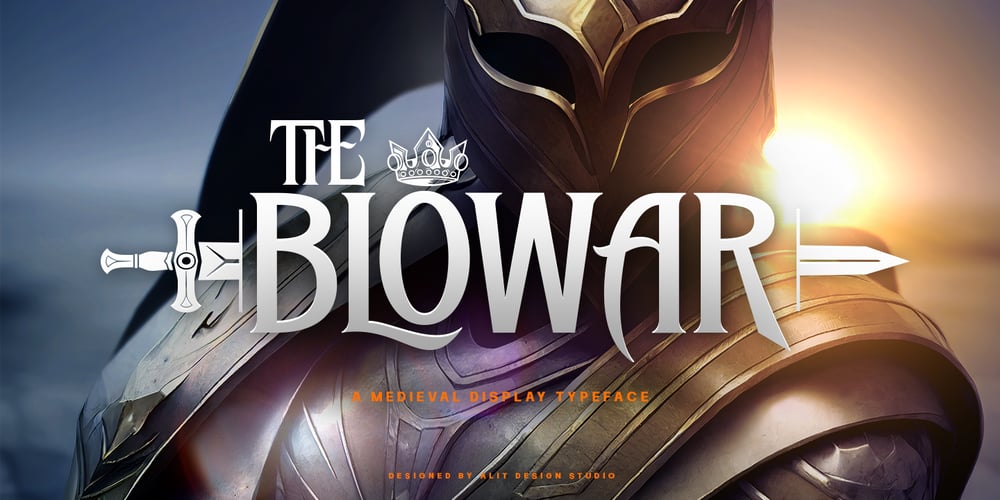
The Blowar Font Family was designed by Alit Suarnegara and published by Alit Design. The Blowar contains 2 styles and family package options. Presenting ⚔️The Blowar Typeface⚔️ by alitdesign.The Blowar font is inspired by action movie posters with the theme of war or knights in the Roman era. The bold and bold character of The Blowar font is perfect for making hero movie titles, game titles, logotypes, t-shirt designs and so on with heroic themes.Apart from the regular font, the Blowar also has an italic style which makes the design more dynamic and cool. The Blowar font has alternatives that you can combine between swashes and symbols that have the theme of heroes and war. Besides that this font is very easy to use both in design and non-design programs because everything changes and glyphs are supported by Unicode (PUA).The Blowar Typeface has a total of 706 glyphs including symbol, multilingual.Language Support : Latin, Basic, Western European, Central European, South European,Vietnamese.In order to use the beautiful swashes, you need a program that supports OpenType features such as Adobe Illustrator CS, Adobe Photoshop CC, Adobe Indesign and Corel Draw. but if your software doesn’t have Glyphs panel, you can install additional swashes font files.